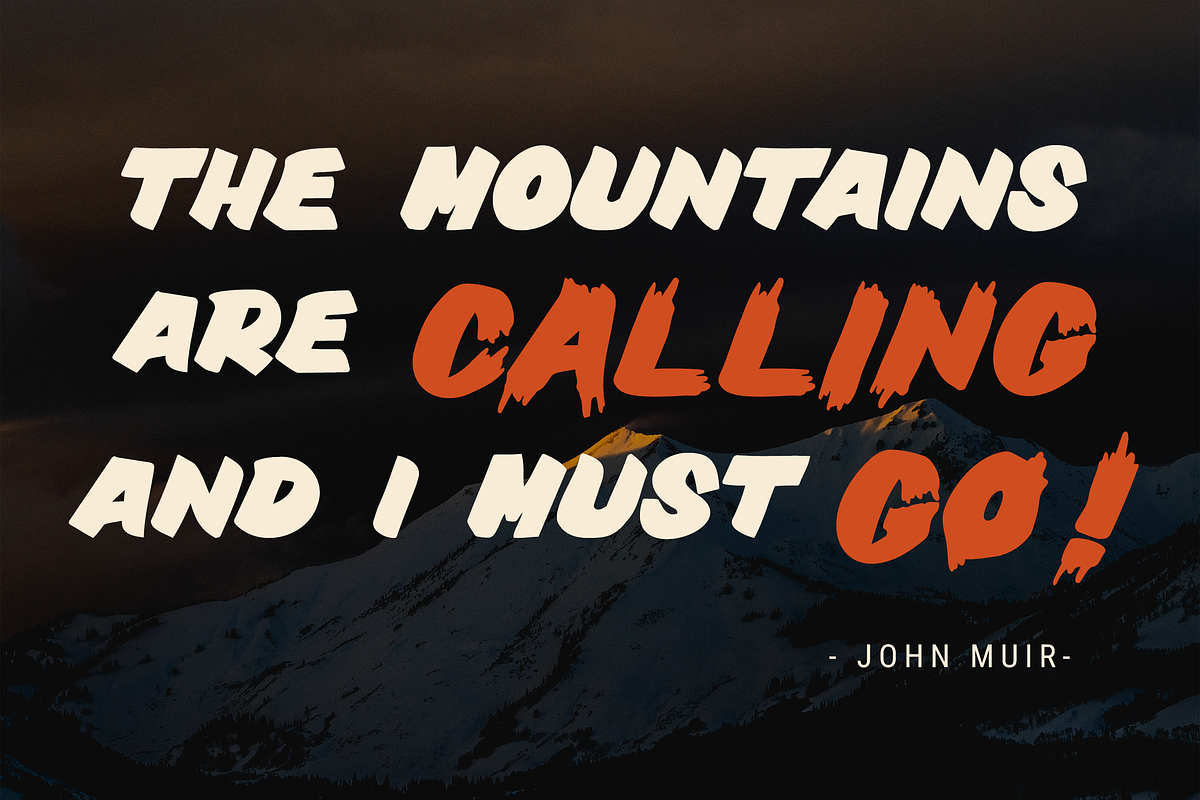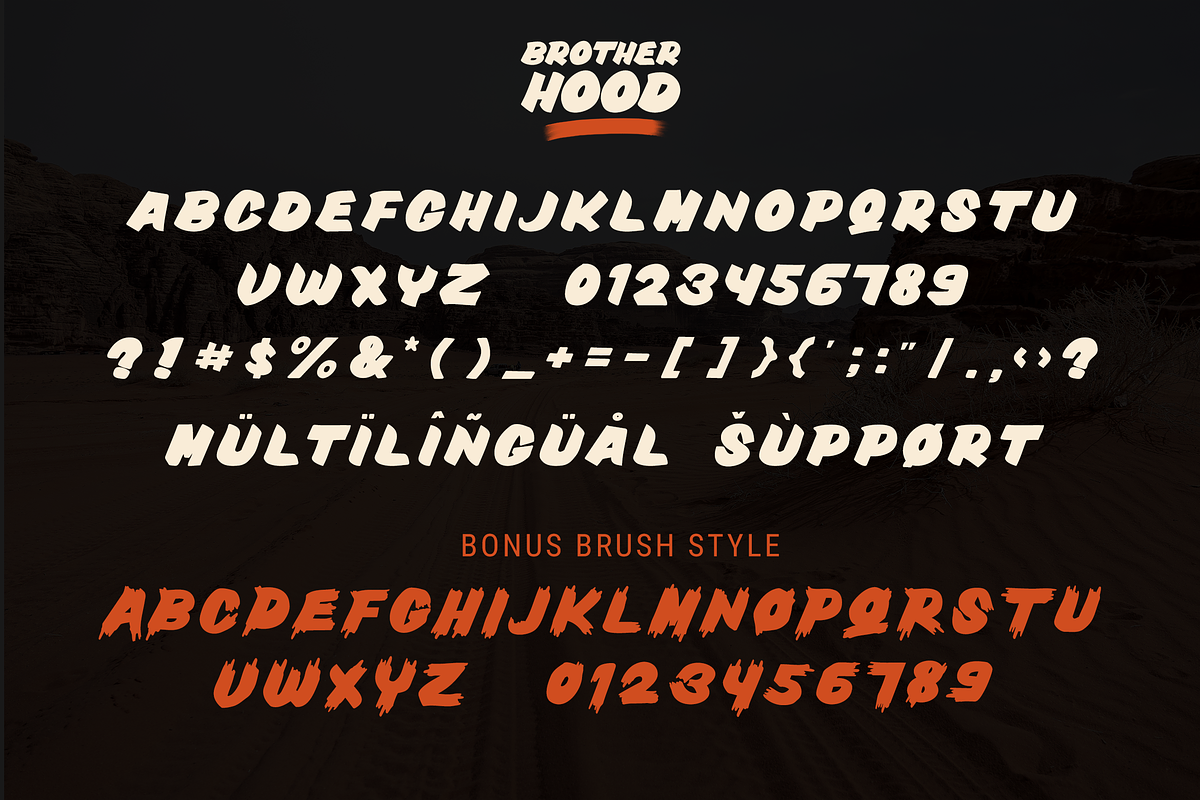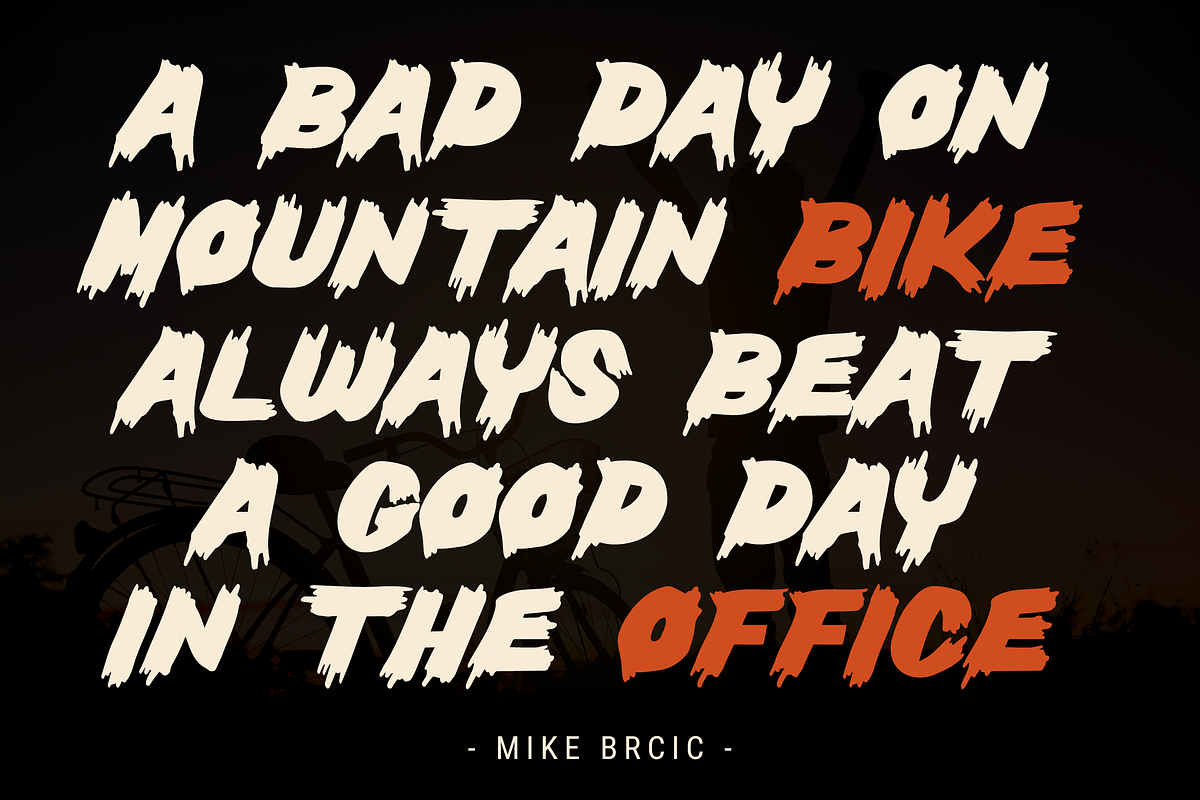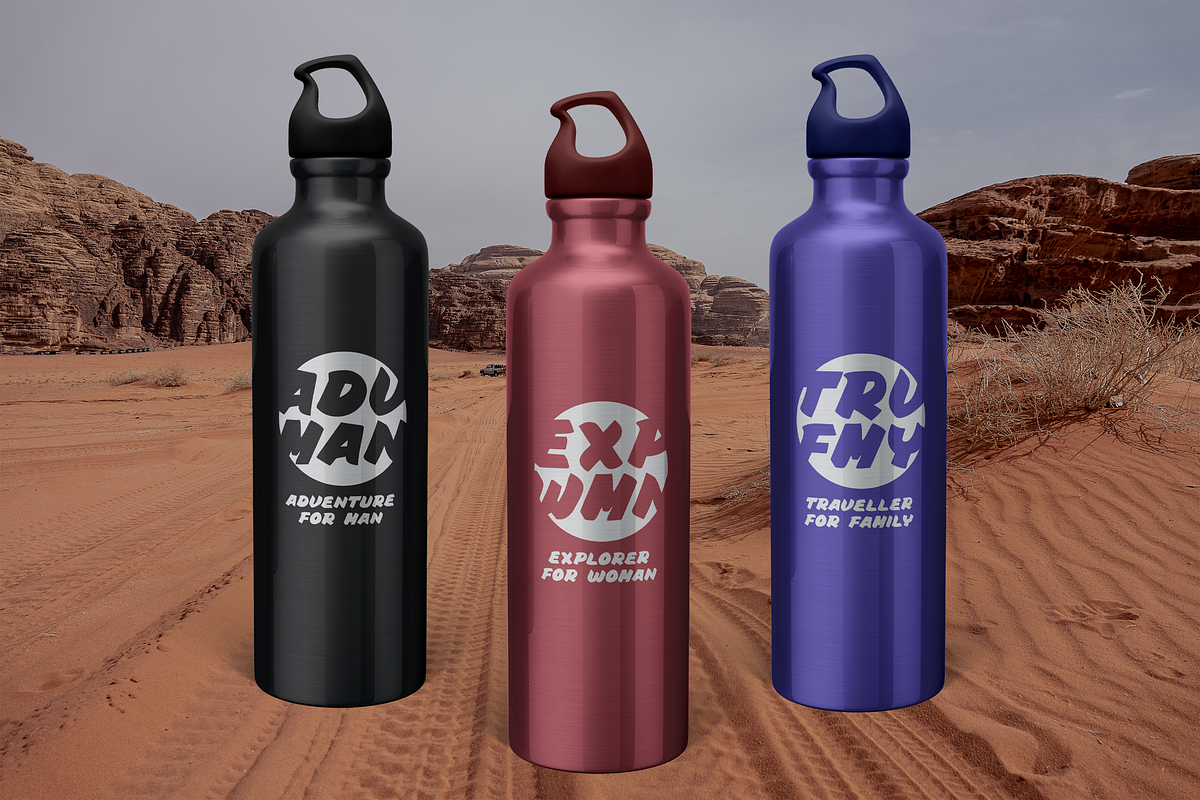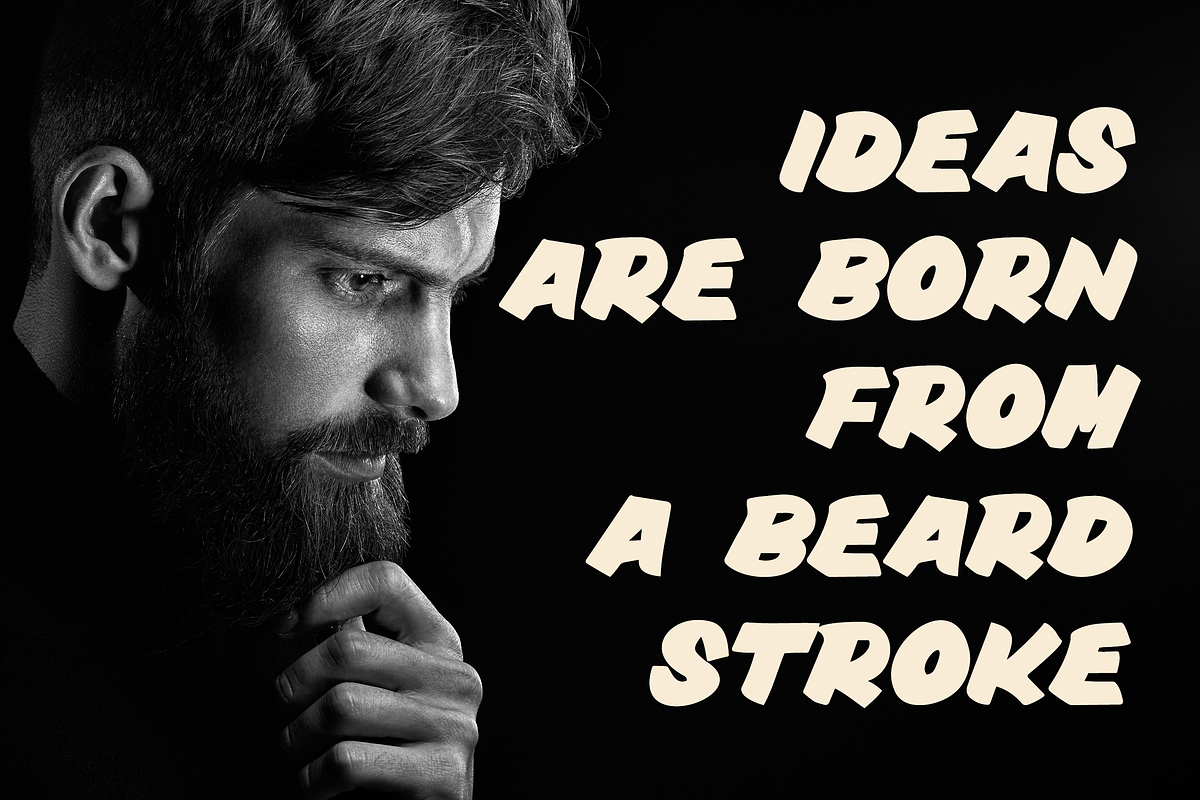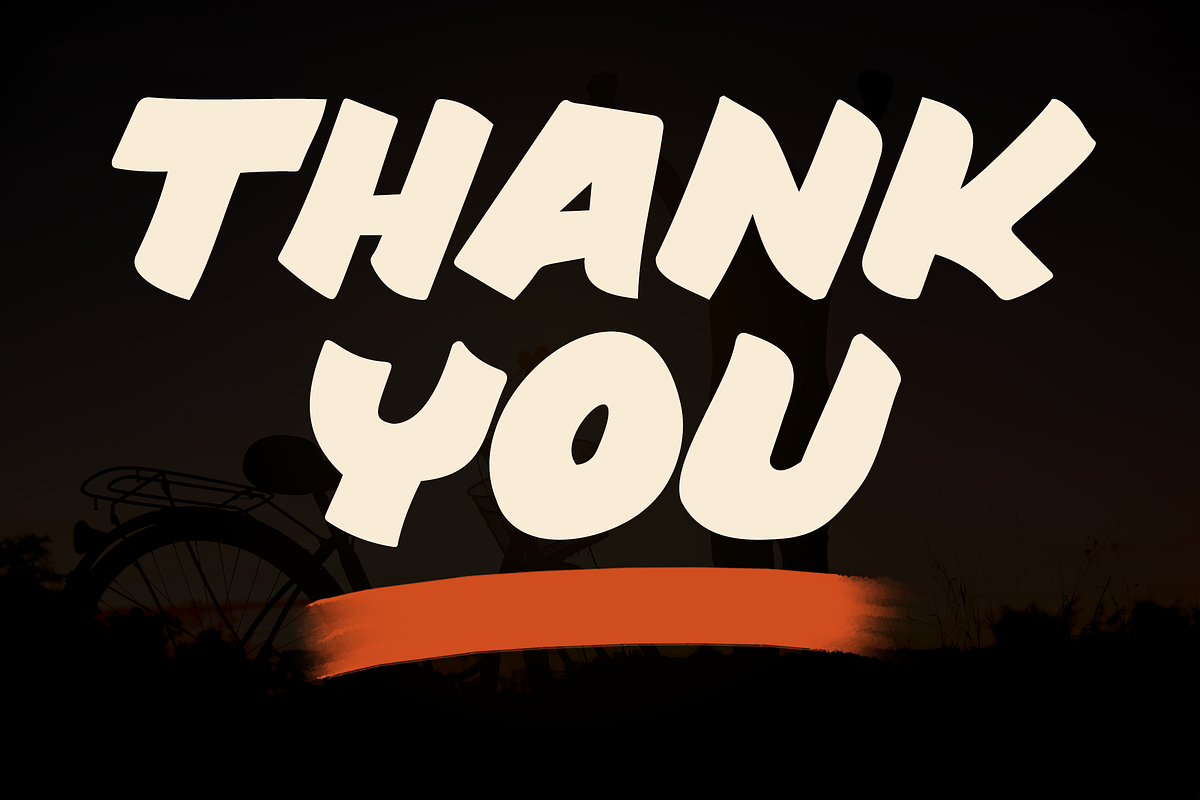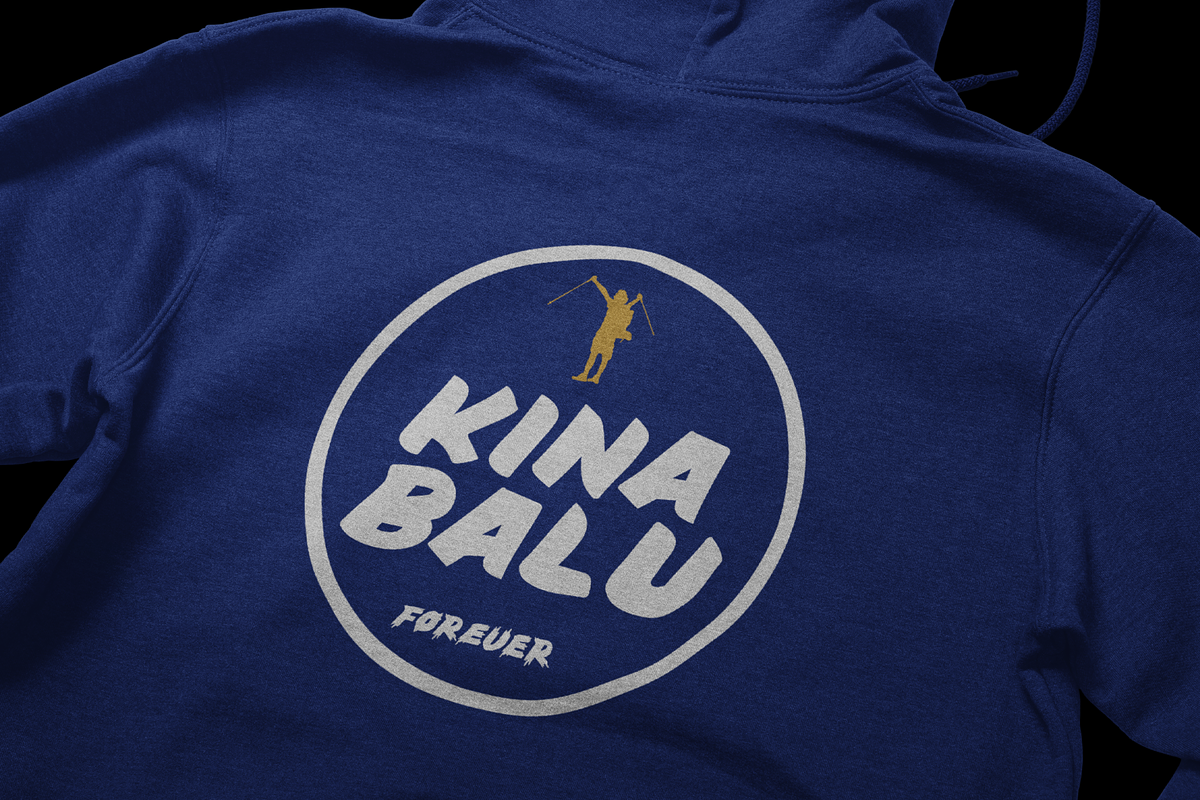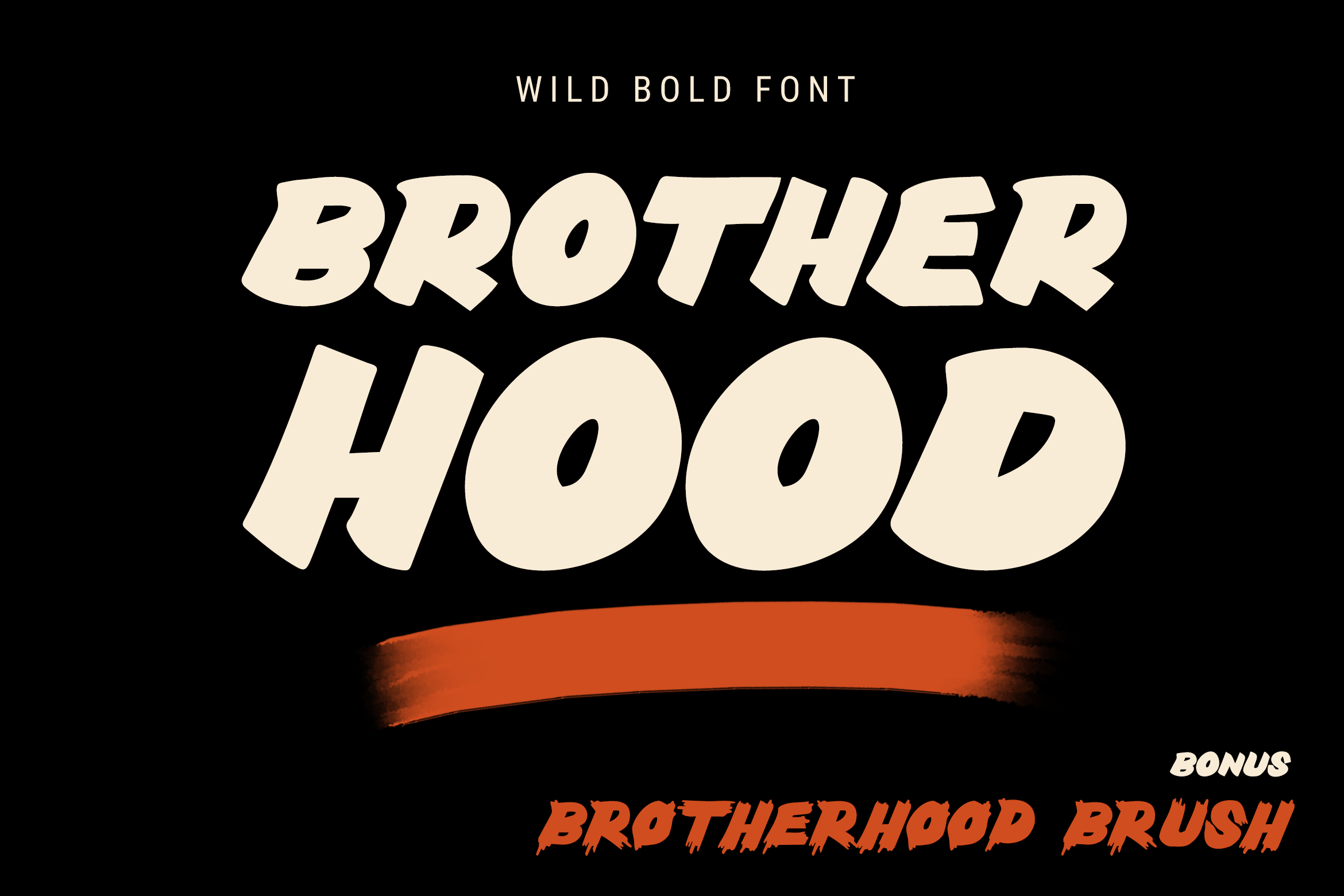
Brotherhood | Modern Bold Font
Brotherhood is a masculine modern bold font with touch of craftmanship. It was designed by hand with passion and inspired by the love of adventure. All characters were carefully drawn on a iPad before crafted to become a Typeface. It is easy and perfect to match this typeface for style logos, labels, package design, lettering, patterns and others.
Brotherhood Regular • A hand drawn modern bold sans font. It contains upper & lowercase characters, all punctuation and numerals.
Brotherhood Brush • This is a modification of the Regular by adding brush touch. It is another set of upper & lowercase characters.
Language Support; It does support basic International Characters